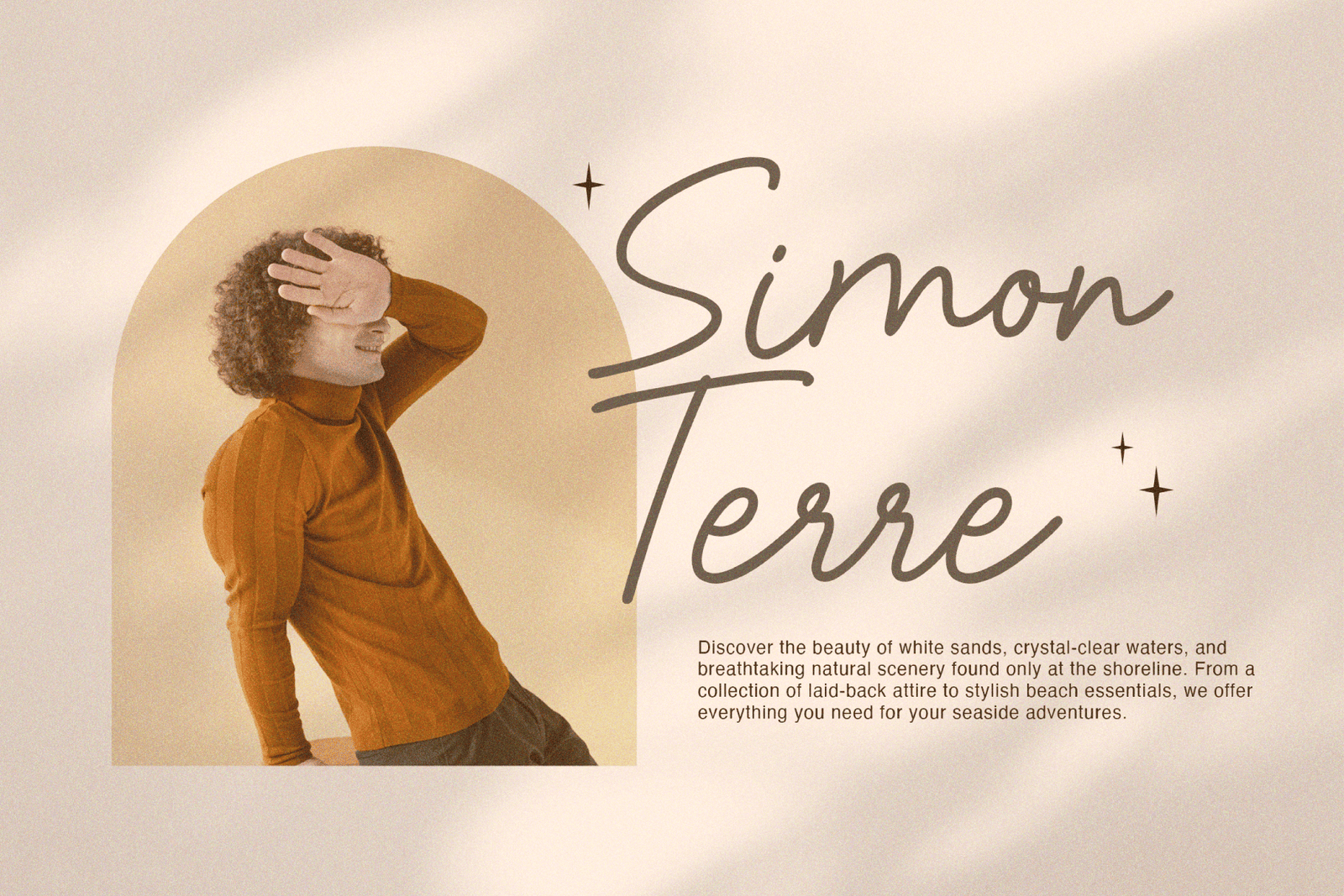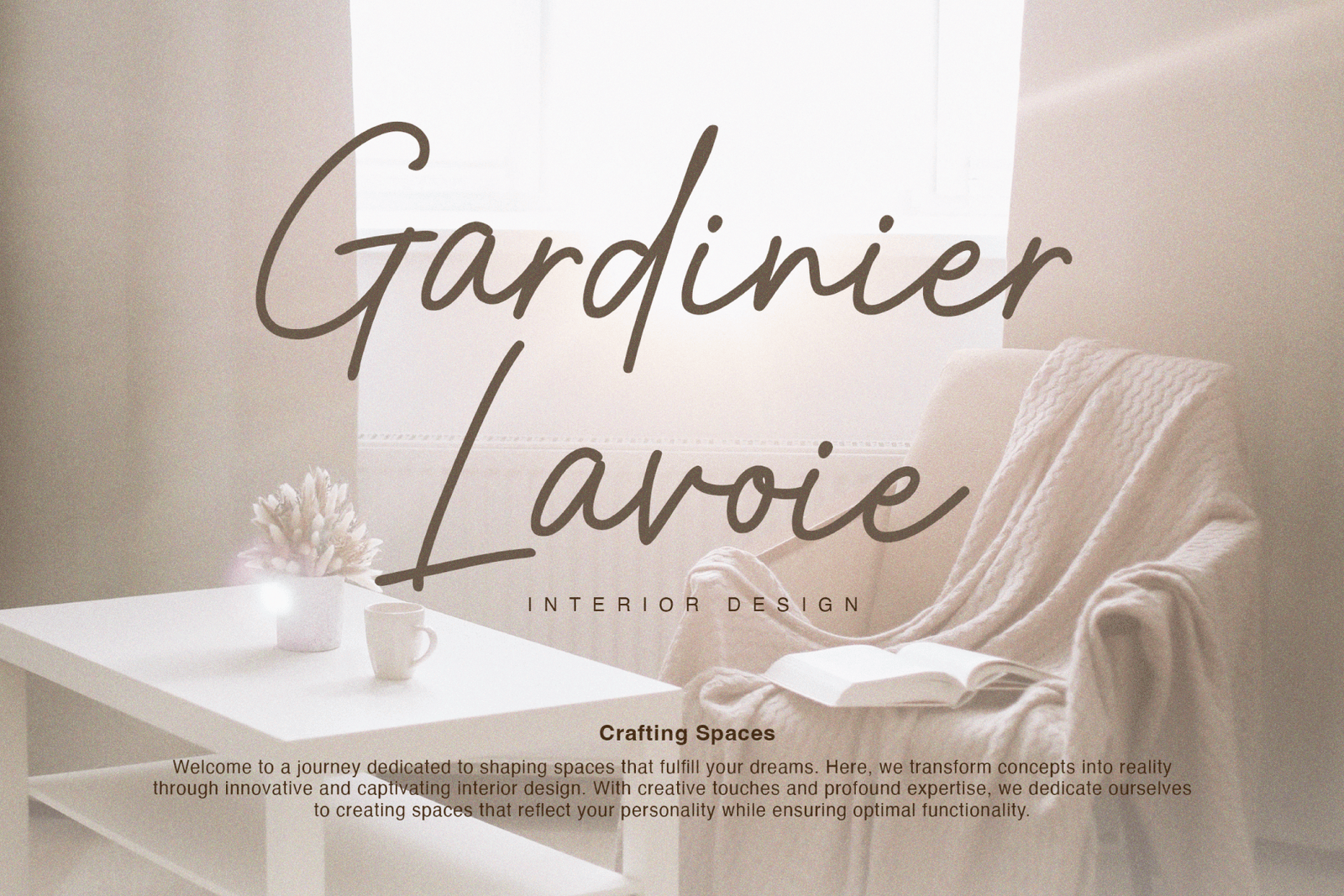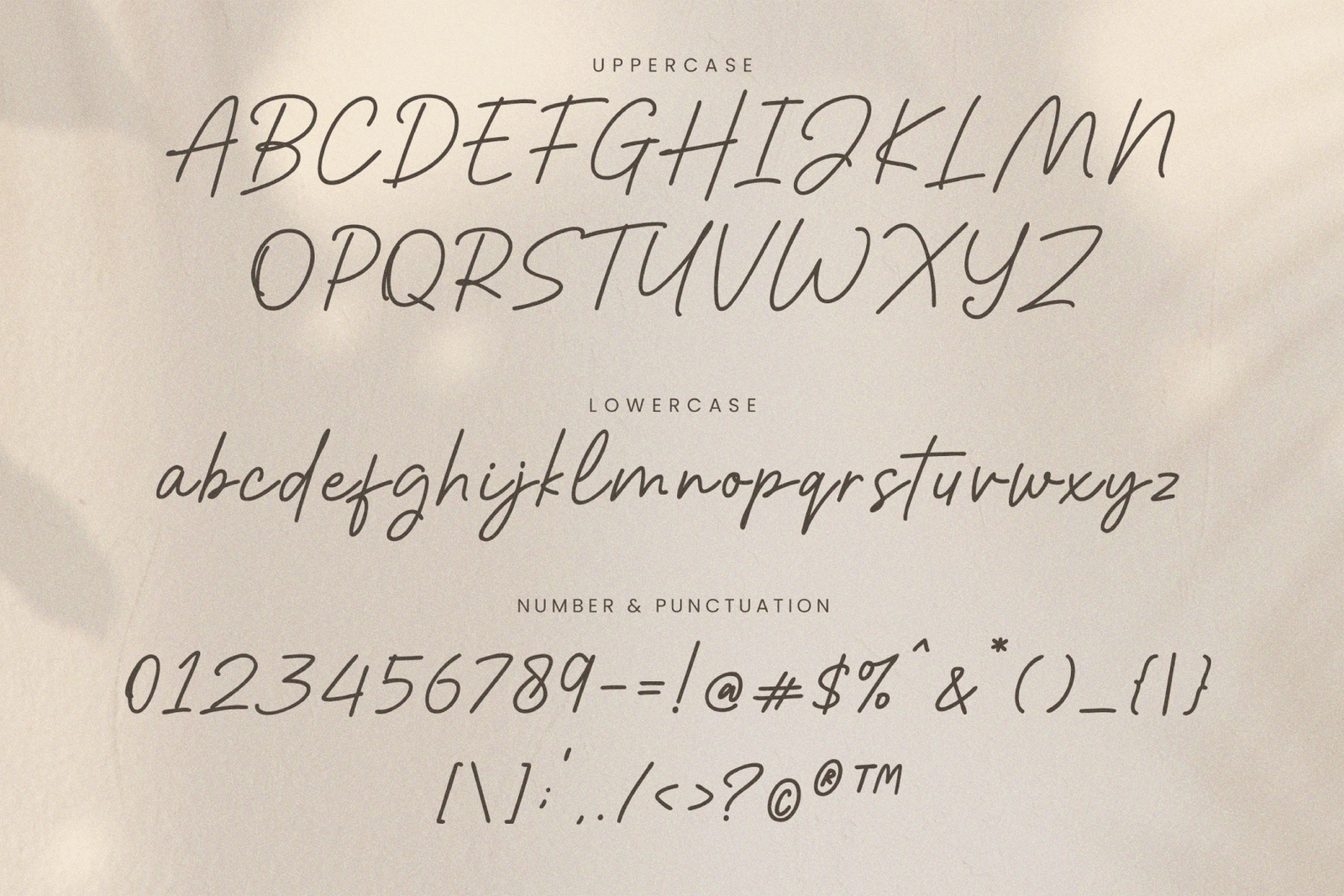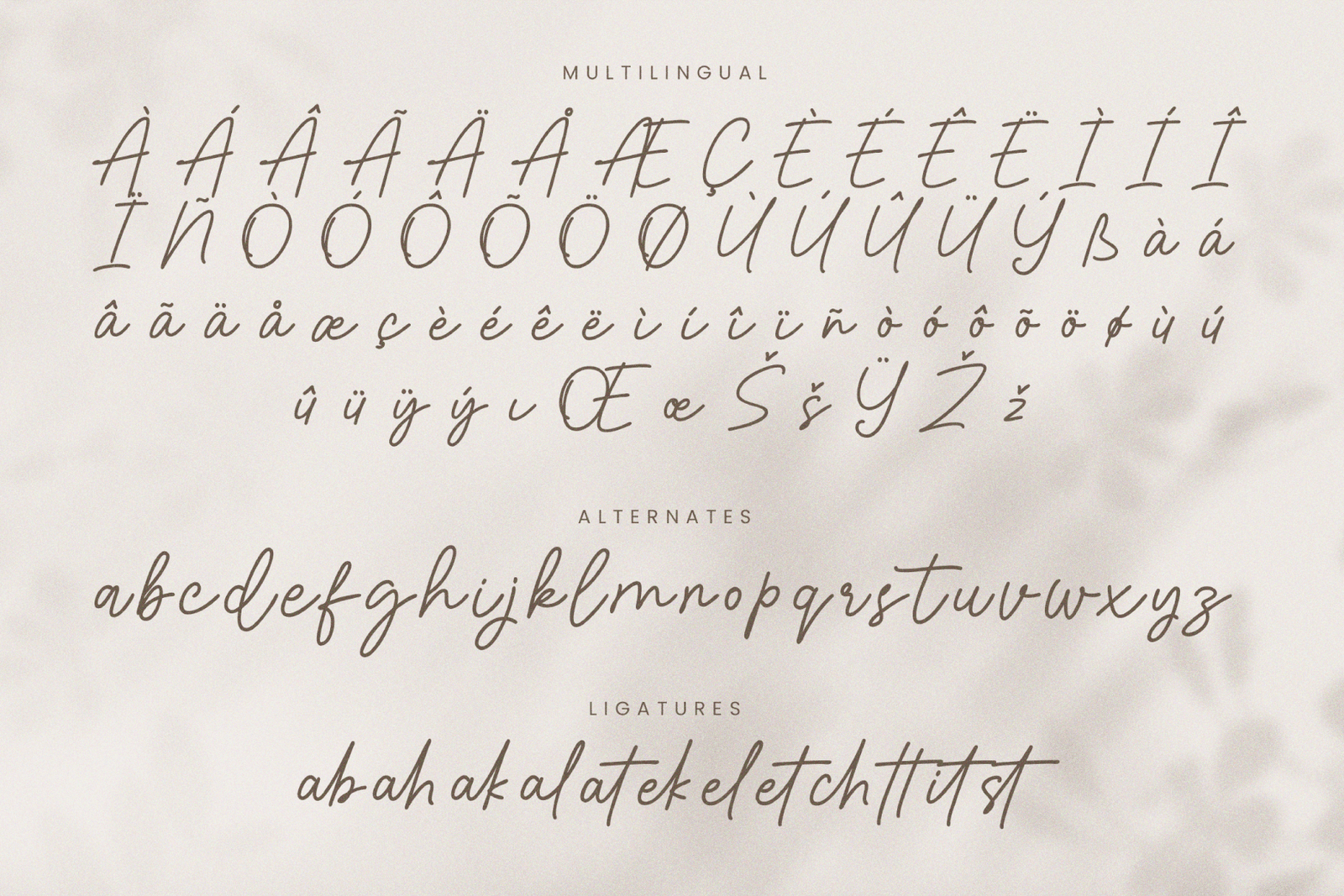
Riday Parcia – Modern Script Font
This beautiful monoline script font is a great choice for all your design projects! Perfect for logos, social media posts, advertising, and product packaging, it adds a stylish touch to anything you create. Whether you’re designing labels, watermarks for your photography, invitations, or stationery, this versatile font will help your work stand out. With its elegant and flowing design, it’s sure to bring a professional and charming vibe to your projects!
Feature :
– Uppercase and lowercase letters
– Numbers and punctuation
– Multilingual
– Ligatures
– Alternates